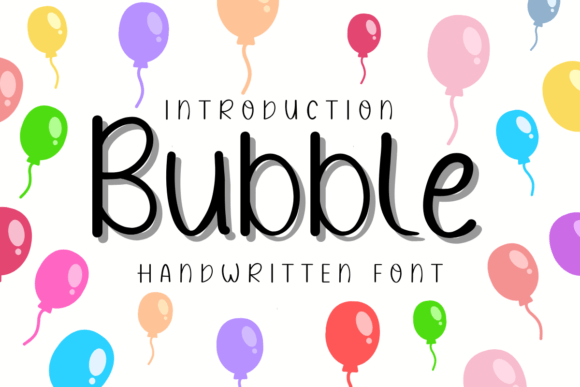
The Joy of Handwritten Expression: Introducing the Bubble Font
Have you ever found yourself scribbling down notes in a coffee shop, trying to capture the perfect phrase to express your feelings? The rush of creativity that comes with putting pen to paper can be exhilarating. And what if you could bottle that feeling and use it in your designs? That’s where the Bubble Font comes in – a beautiful, handwritten font that captures the essence of handwritten expression.
This charming font is perfect for taking notes, writing a diary, or creating heartfelt greeting cards. But its versatility doesn’t stop there. You can use the Bubble Font for a wide range of designs, from banners and social media posts to mugs and shirts. As a designer, you’ll appreciate the value of having a font that adds a personal touch to your work. The Bubble Font is a valuable addition to any design toolkit, offering a unique way to connect with your audience.
Bubble Font Key Features
- Resolution: The font is designed to be scalable and legible at high resolutions, making it suitable for use in high-resolution displays and printing applications.
- Unique Characteristics: Bubble Font features a unique, bubbly design that adds a playful and whimsical touch to text, making it ideal for use in children’s books, magazines, and other applications where a fun and approachable tone is desired.
Bubble Font Review
As a designer, I was excited to try out the Bubble Font. Here’s my honest take on this font.
The Bubble Font is perfect for creating a fun and playful atmosphere in your designs. The rounded, bubbly shape of each letter makes it ideal for titles, headings, and any other text that needs a bit of whimsy.
- Highly customizable: You can adjust the size, color, and spacing of the font to fit your design needs.
- Works well for digital and print designs: The font looks great on both screens and paper, making it a versatile choice.
- Easy to read: Despite its playful appearance, the font is still easy to read, even at smaller sizes.
While the Bubble Font is a great choice for many designs, it’s not without its limitations.
- Not suitable for formal designs: The playful nature of the font makes it unsuitable for formal or professional designs, such as business reports or academic papers.
- May not work well for long blocks of text: The font’s playful appearance can make it difficult to read large blocks of text, making it better suited for shorter pieces of text.
Overall, the Bubble Font is a great choice for designers looking to add a bit of whimsy to their designs. While it has its limitations, it’s a highly customizable and versatile font that can be used in a variety of contexts. With some careful consideration of its limitations, the Bubble Font can be a valuable addition to any designer’s toolkit.
Some common use cases for Bubble Font include:
- Creating eye-catching social media graphics
- Designing playful and whimsical illustrations